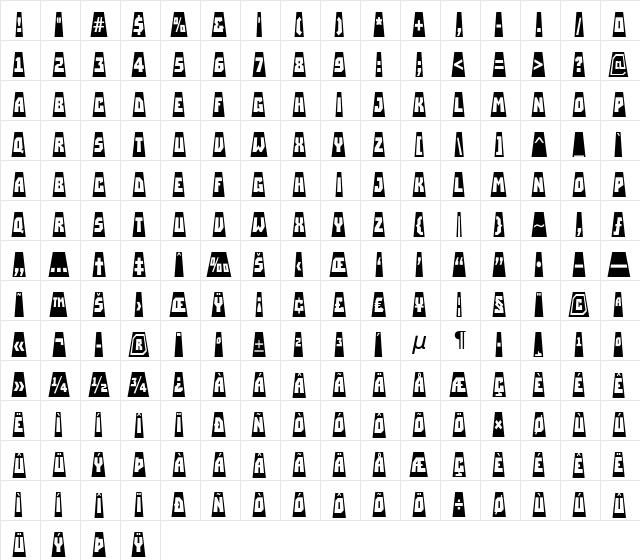
a_SimplerCmCtAbv Bold
| Designer | W.Chufarofsky & M.Slutsker |
Design Context for a_SimplerCmCtAbv Typeface
a_SimplerCmCtAbv offers clean, dependable letterforms without strong stylistic allegiance, making it a practical choice for designers who need flexibility. The heavy weight commands attention and anchors typographic hierarchies.